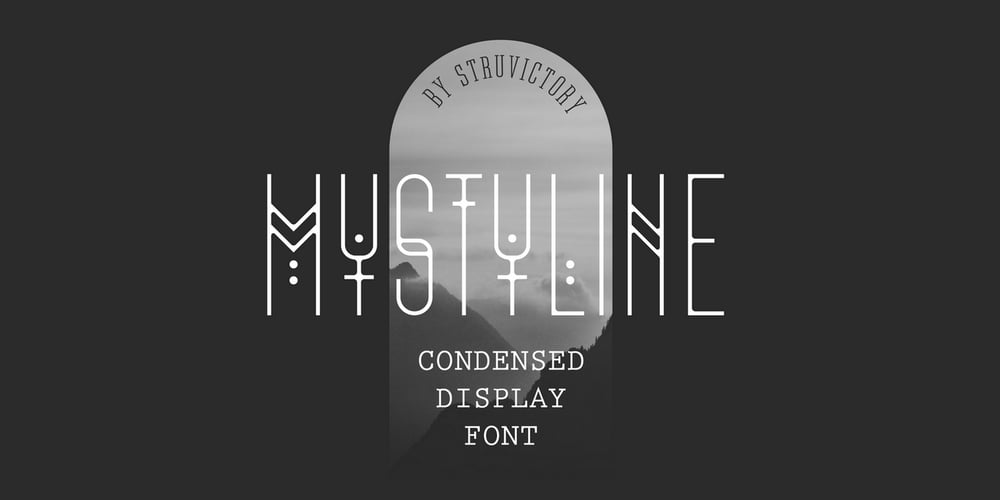
Mystyline Decorative Font Family was designed by Viktoryia Strukouskaya, Viktor Strukouski and published by Struvictory.art. Mystyline Decorative contains 1 styles and family package options. Mystyline is a modern thin line condensed font inspired by hipster aesthetics. The letters are decorated with lines and dots.Mystyline is suitable for contemporary typographic posters (event design, movie posters, advertising, music production, photo overlays), hipster design etc.